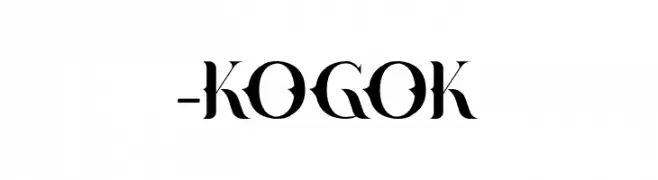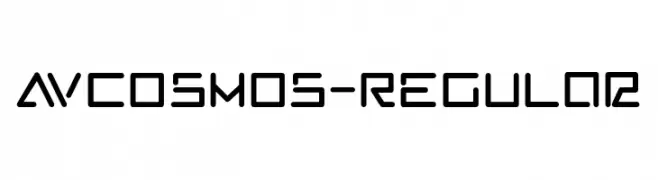
A playful, bold handwritten font with smooth, rounded edges and lively character.
A graceful handwritten script font with elegant, flowing letterforms.
A dynamic and expressive handwritten font with fluid strokes.
A bold, geometric font with a three-dimensional shadow effect.
A dynamic and flowing script font with elegant cursive letterforms.
A cursive, handwritten font with elegant, flowing lines.
An elegant, flowing script font with bold, cursive letterforms.
A clean, modern sans-serif font with geometric structure and consistent stroke width.
A bold, high-contrast font with sharp angles and dynamic style.
A futuristic, geometric font with clean lines and angular shapes.